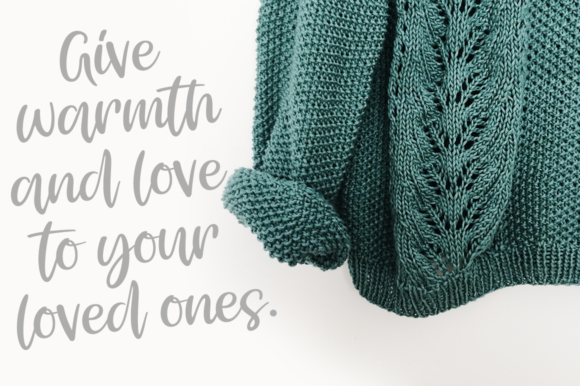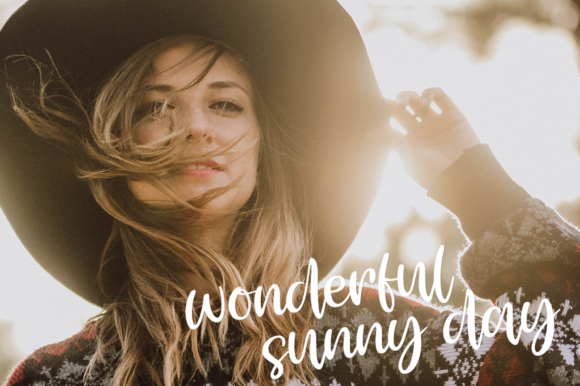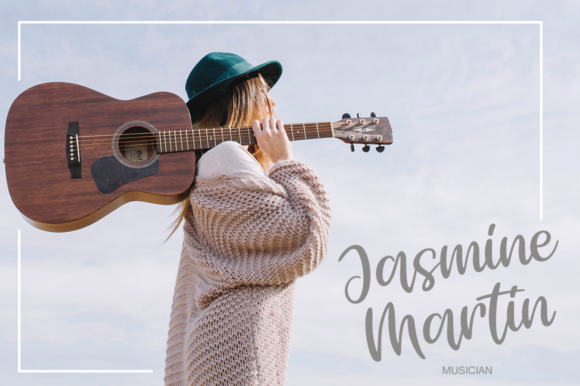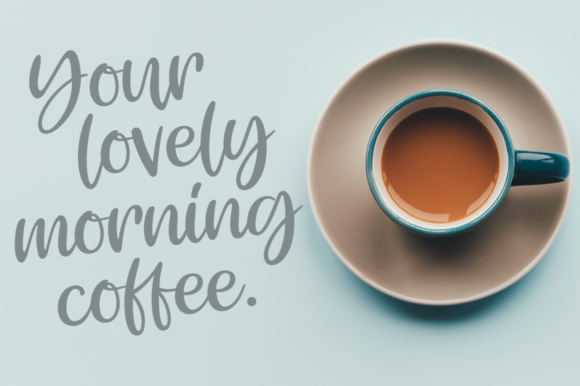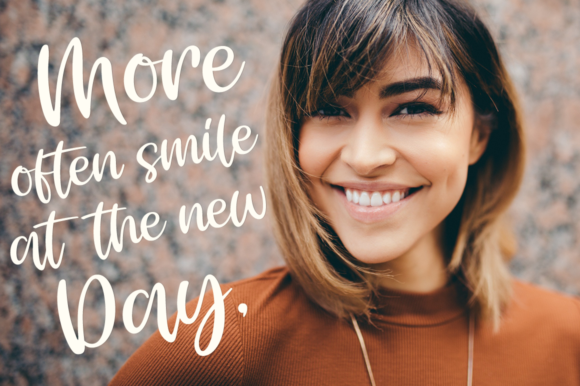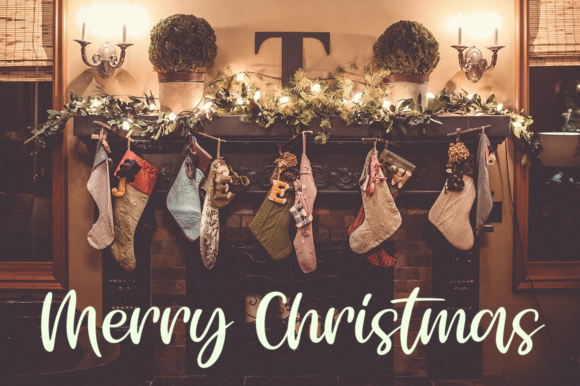
Introduction to Cashmere Font
The Cashmere is a fresh, handmade signature font.
It’s ideal for branding and decorating your products .
Key Features of Cashmere Font